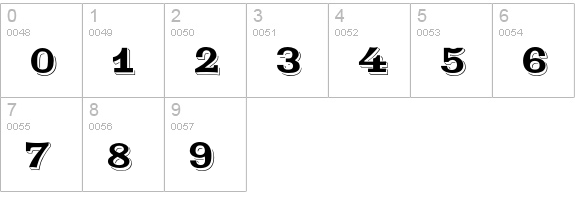
GoldRush Font Details
GoldRush font is a stunning display typeface that exudes elegance and sophistication. With its intricate details and vintage flair, this font is perfect for adding a touch of luxury to your designs. Its ornate serifs and graceful curves make it a standout choice for logos, branding, invitations, and more. What's even better is that GoldRush font is completely free to download! Yes, you heard that right - you can get your hands on this exquisite font at no cost. Simply head over to FontsMarket.com to access this beautiful typeface and elevate your projects with its timeless charm. Don't miss out on this amazing opportunity to enhance your designs with GoldRush font - download it today and start creating something truly special.